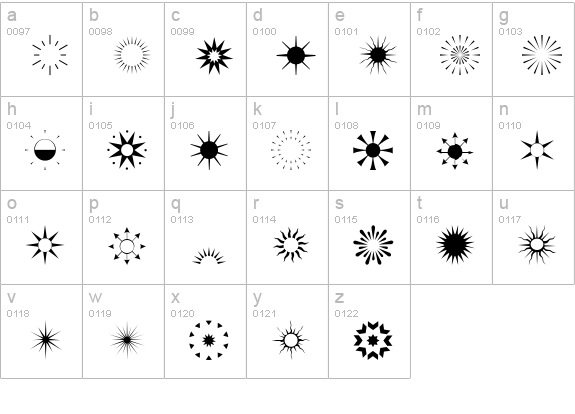
Akhenaten Font Details
Introducing Akhenaten font, a captivating typeface that exudes elegance and sophistication. Inspired by ancient Egyptian art and architecture, this font features intricate details and unique flourishes that set it apart from traditional fonts. Akhenaten font is perfect for adding a touch of mystique and grandeur to your designs. And the best part? Akhenaten font is completely free to download at FontsMarket.com. Whether you're a designer looking to add a distinctive flair to your projects or a content creator in search of a font that will make your work stand out, Akhenaten font is the perfect choice. Download it today and elevate your designs to new heights with this stunning and versatile typeface.